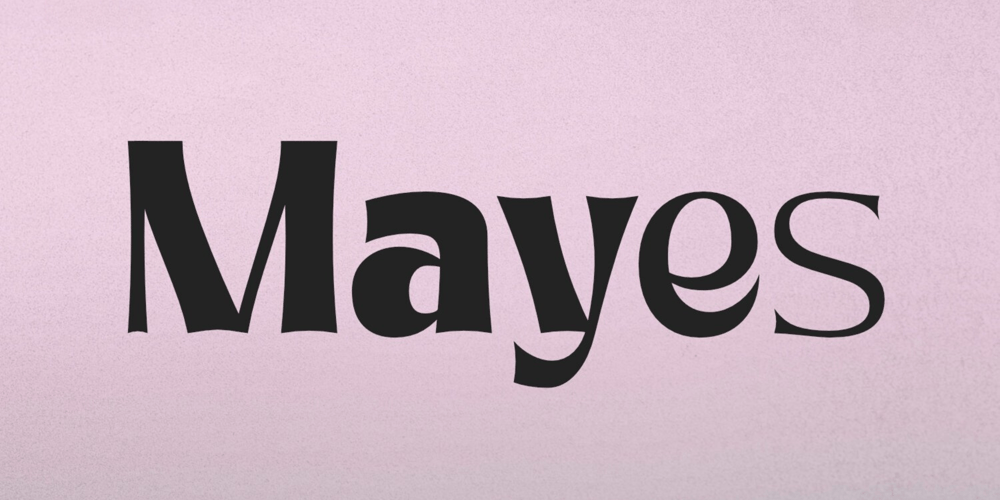
Mayes Font Family was designed by Irpan Maulana and published by Sabrcreative. Mayes contains 6 styles and family package options. Mayes is a soft, geometric sans serif font family. It consists of 6 weights ranging from Thin to Black, combining elements of Bauhaus and modern styles with its distinctive softness. Its design is minimalist, elegant, and warm, offering a unique yet versatile and easily readable impression.Mayes was created with the purpose of providing text displays that are easy to read, strong, and make a standout impression. It is compatible with both text and display purposes, making it perfect for headers, titles, posters, websites, branding, apps, and various other creative designs or projects.Mayes features several OpenType functionalities, including standard ligatures and number variations such as old-style figures, fractions, numerators, and denominators. It also offers extensive support for the Latin language.With Mayes, you can effortlessly create text displays that stand out with a touch of specialty. Its soft yet strong design makes it an ideal choice for creating remarkable and captivating designs.